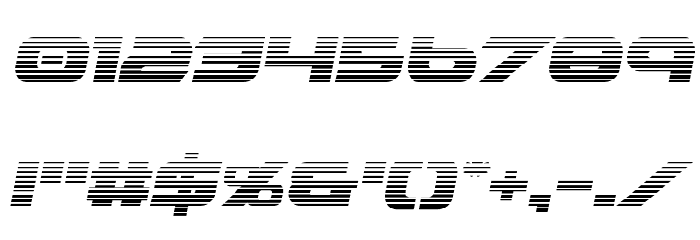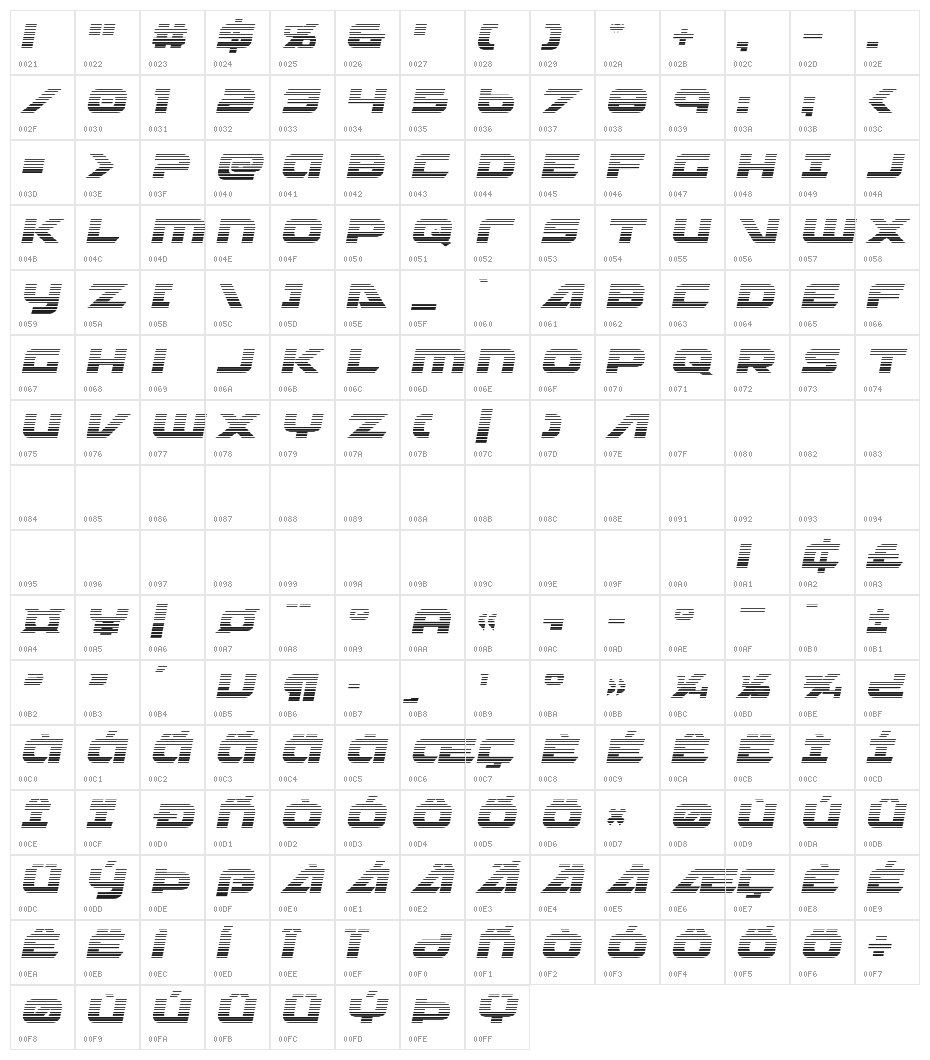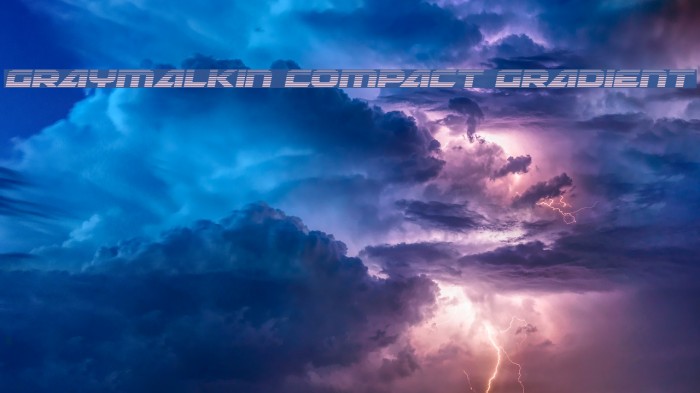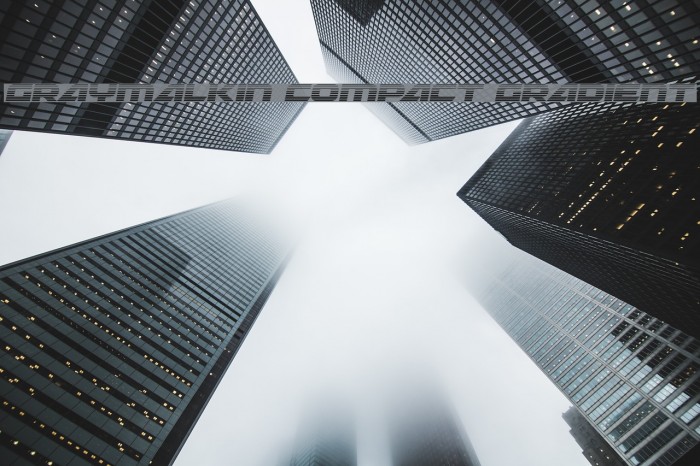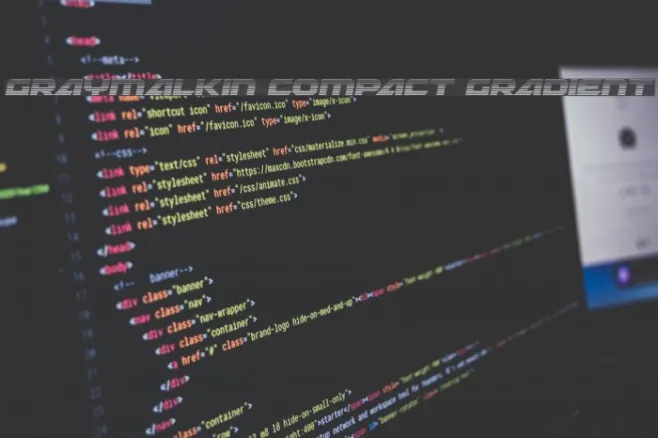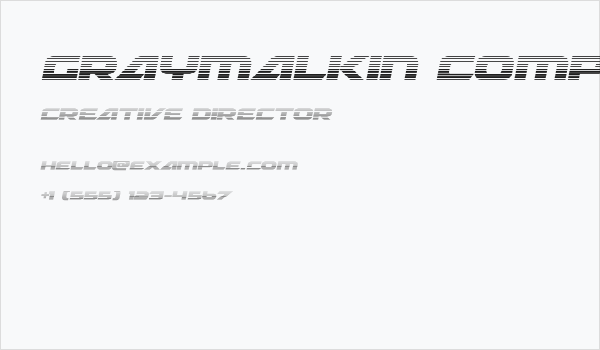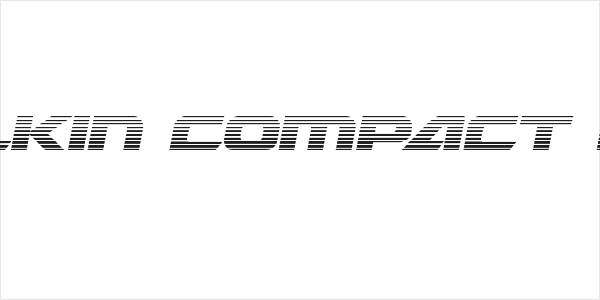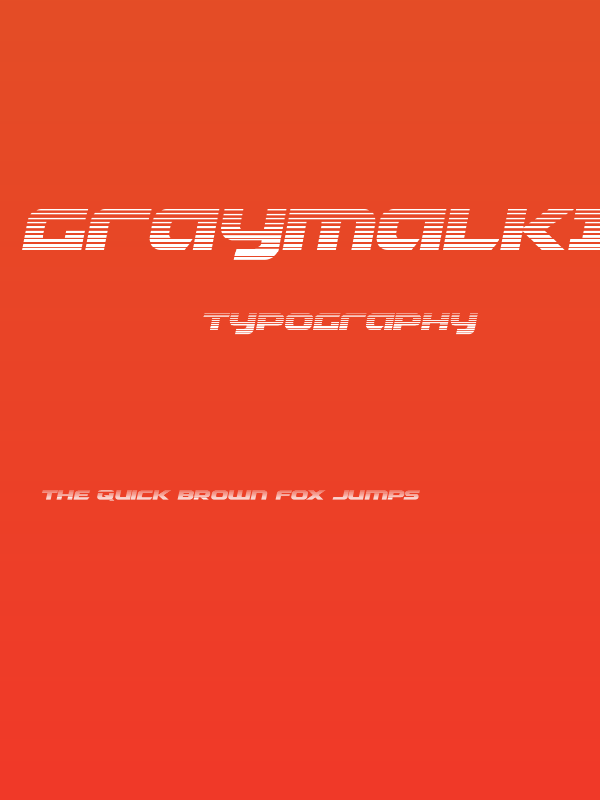
Graymalkin Compact Gradient Font
Graymalkin Compact Gradient Description
This font features a unique, futuristic design characterized by its compact and gradient-like appearance. The letters are composed of horizontal lines that create a sense of movement and dynamism. Each character maintains a consistent width, giving it a monospaced feel, while the gradient effect adds depth and visual interest. The uppercase and lowercase letters share a similar style, with the uppercase being slightly more pronounced. The numbers and special characters are designed to match the overall aesthetic, ensuring a cohesive look across all glyphs. This font is ideal for projects that require a modern and cutting-edge appearance.